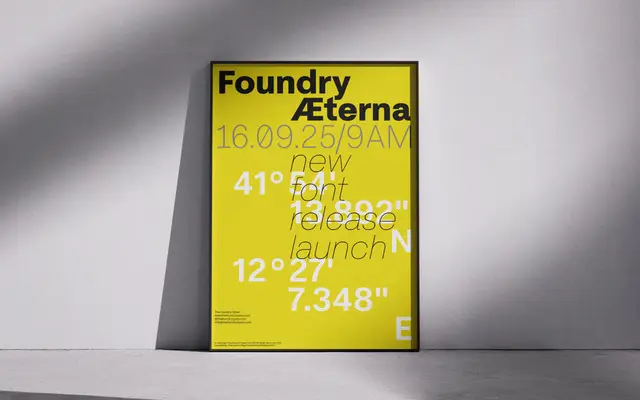
Foundry Aeterna
The Foundry Types · David Quay
A neo-grotesque from The Foundry Types spanning nine weights with matching italics, a large x-height and a supplementary set of over 290 icons and symbols.
Built on modernist foundations with closed terminals and rounded letterforms, Foundry Aeterna prioritises legibility at smaller sizes through compact spacing and a generous x-height. Distinctive details include a serpentine 'a', a double-storey 'g', a curved 't' crossbar and three distinct ampersand variants, alongside a slashed zero and a figure one with a baseline bar. The accompanying Symbols style provides over 290 icons covering transport, wayfinding and user interface applications, all aligned to the cap height for easy integration.
The foundry explicitly describes Foundry Aeterna as a neo-grotesque, grounded in modernist and minimalist principles, with closed terminals, a large x-height and rounded letterforms characteristic of the genre.